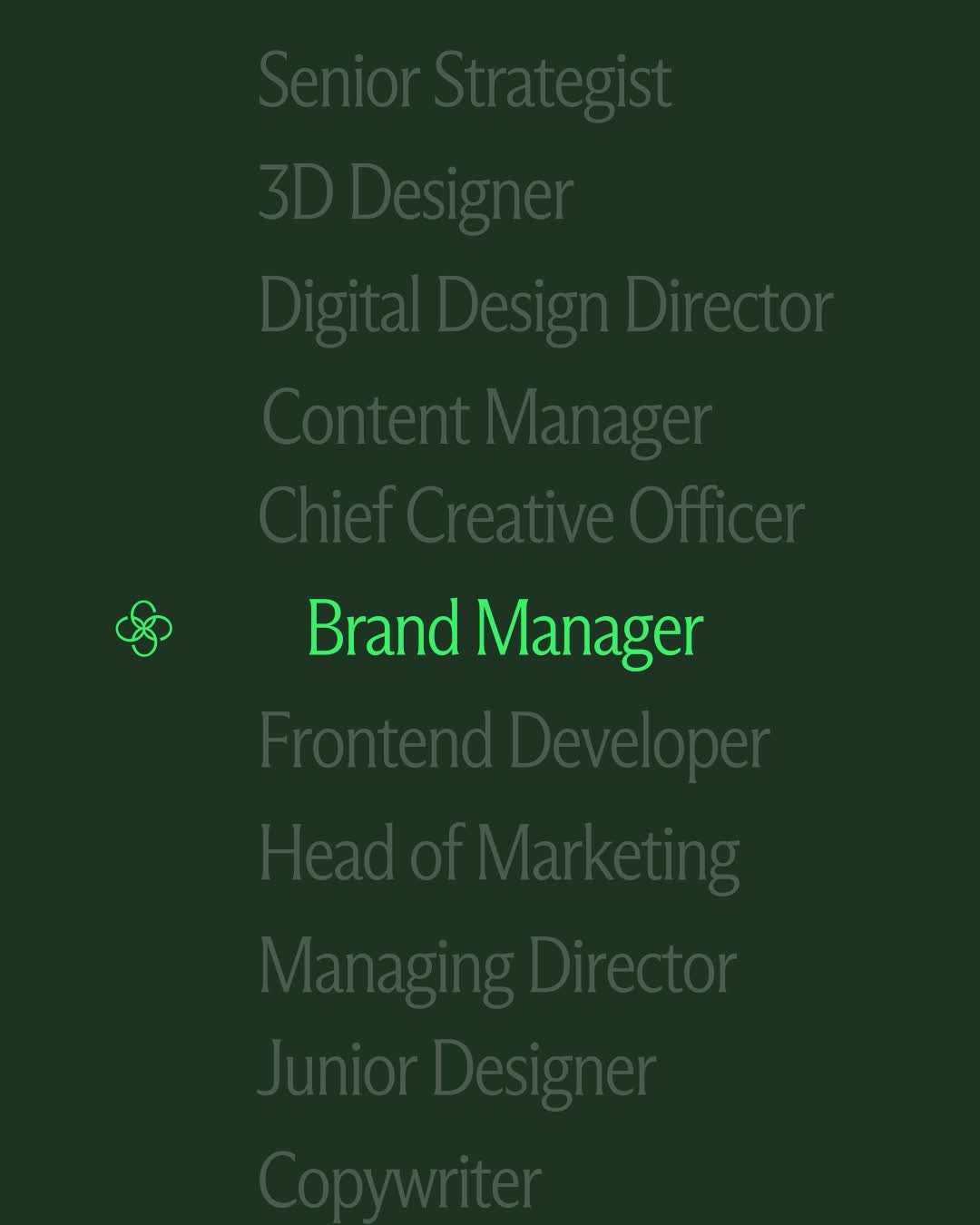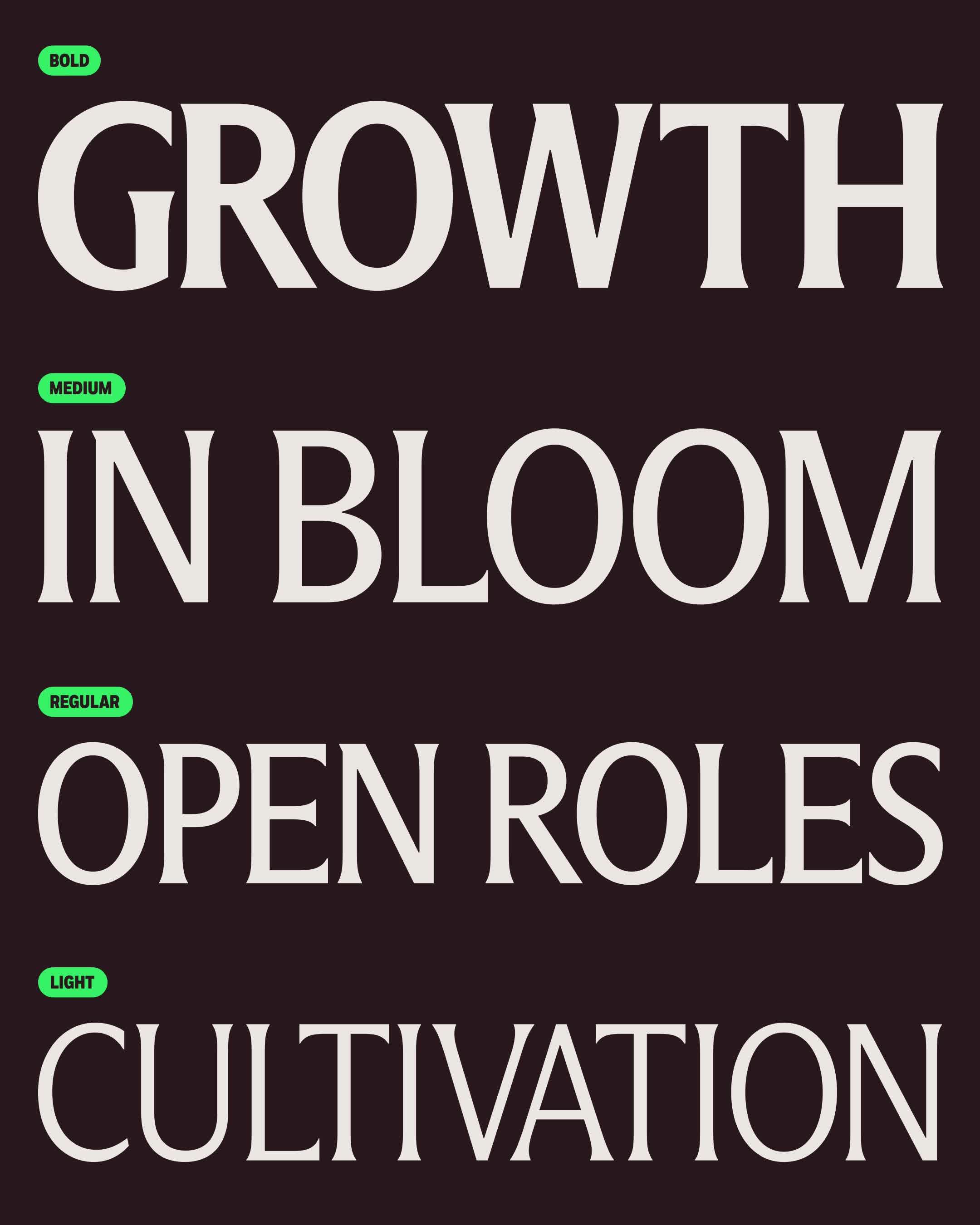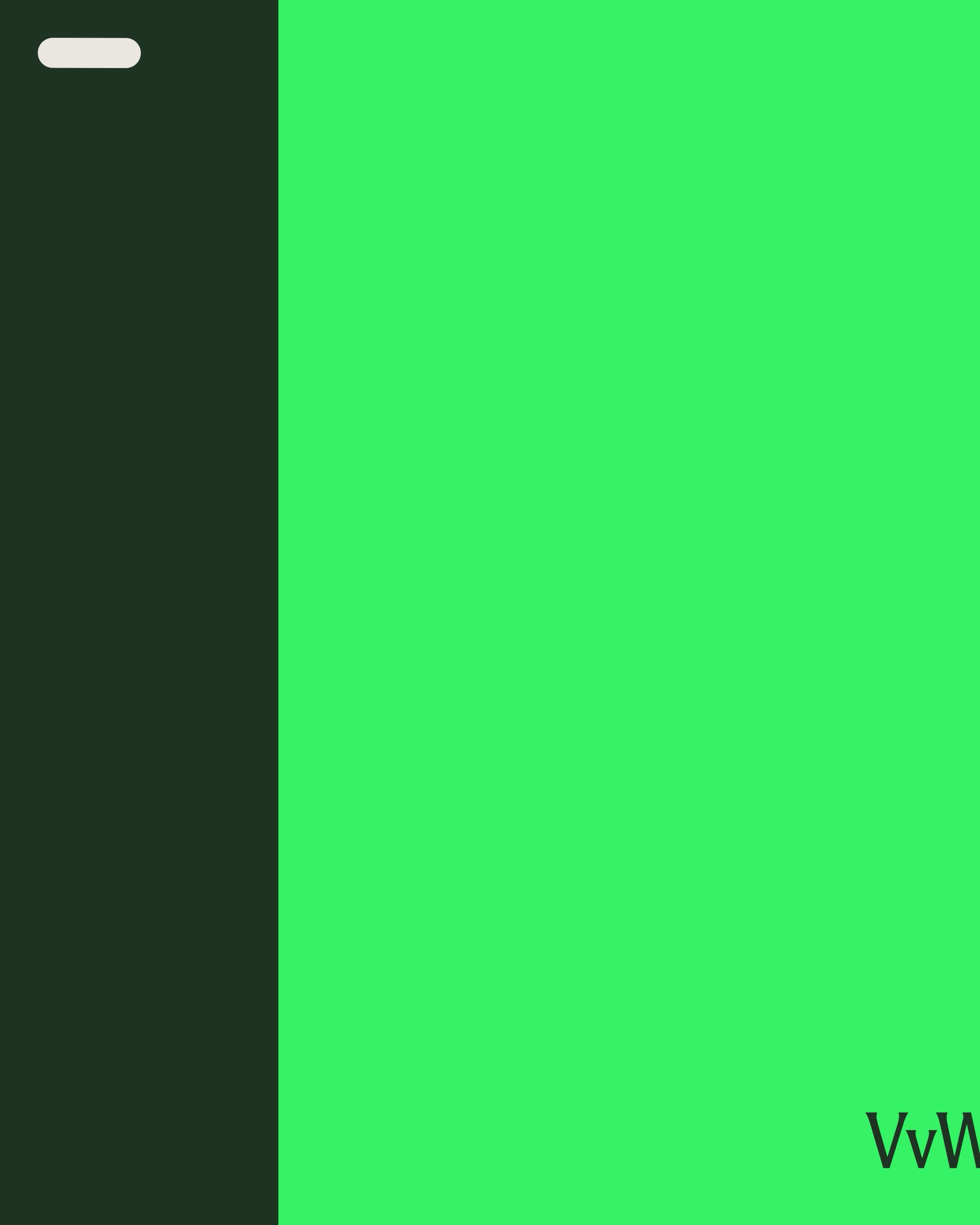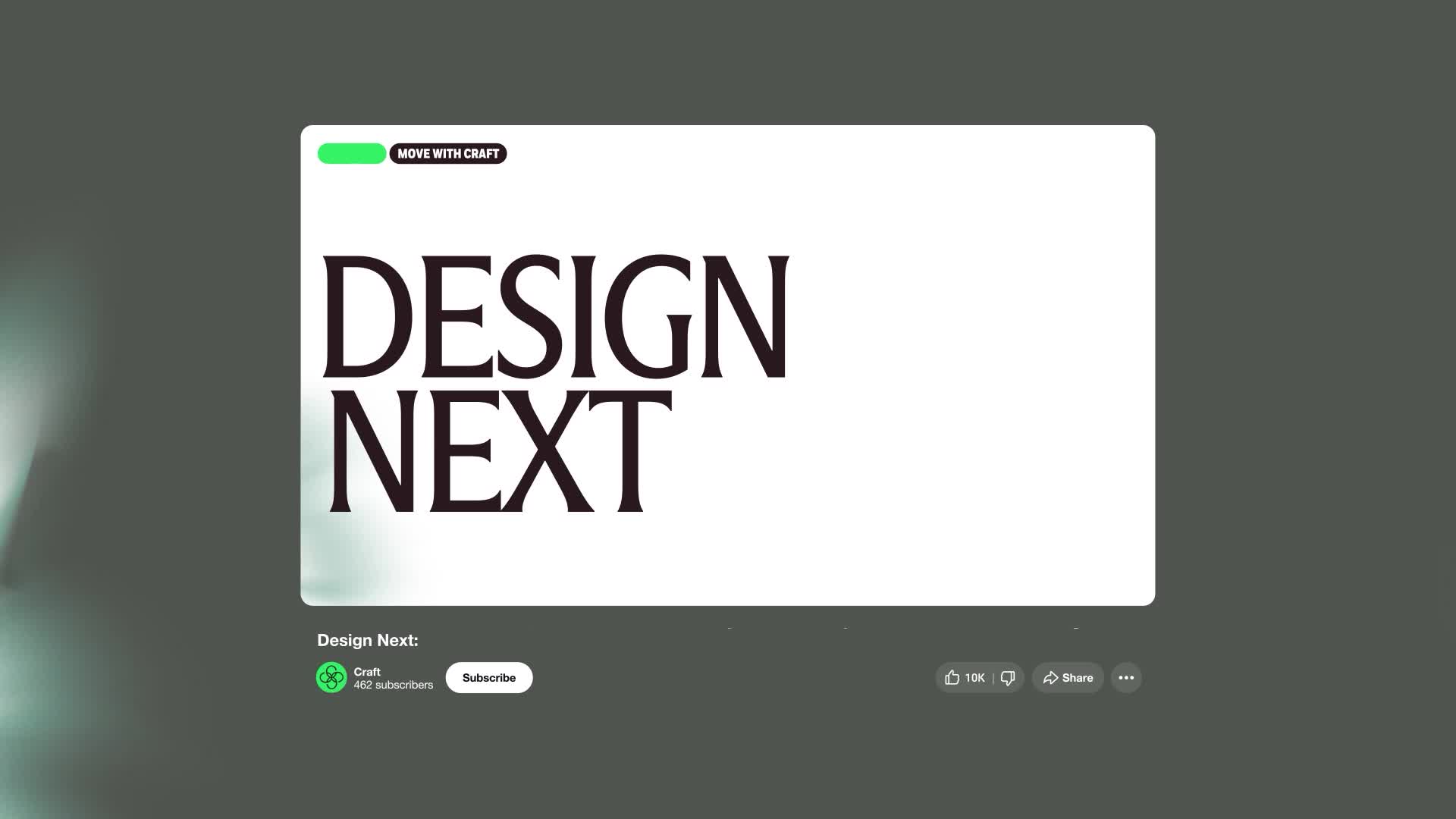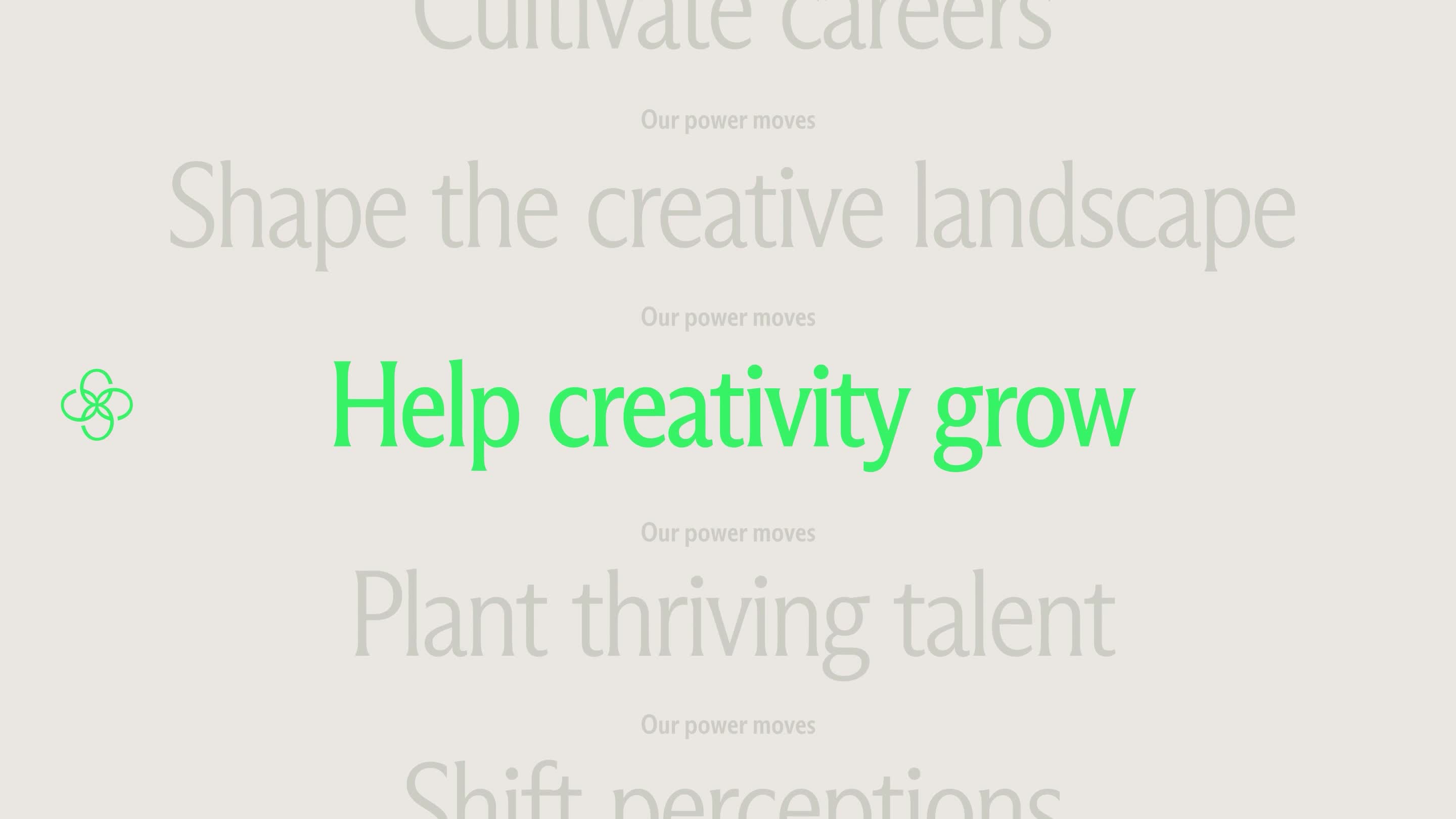
Craft's rebrand leverages ABC Arizona for headlines, which deftly balances character with sophistication through subtle flared details. Fort Condensed handles functional text, providing a clear counterpoint. This typographic tension effectively signals maturity while maintaining warmth. The abstracted 'textural petals' and 'digital blooms,' created with manual Photoshop manipulation and After Effects, offer a flexible graphic system that extends beyond photography, a smart move for branded asset creation.